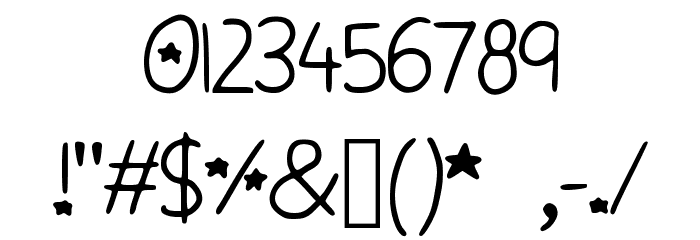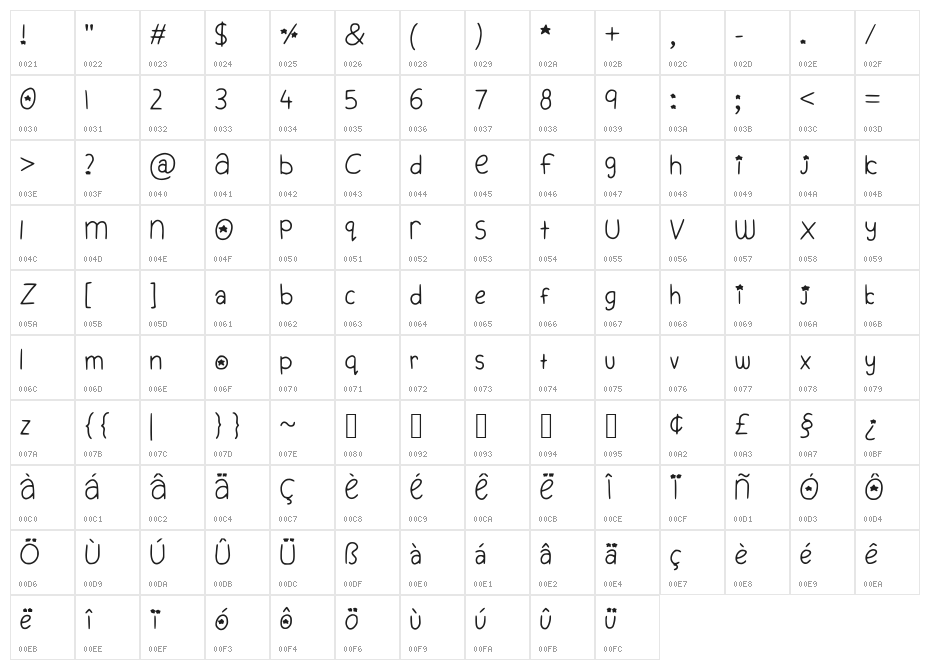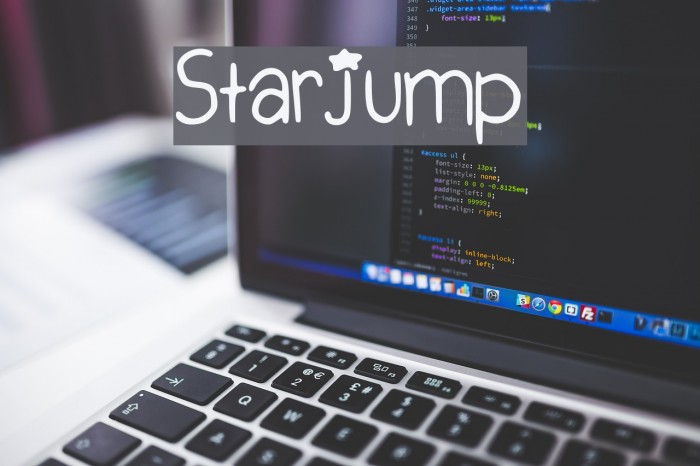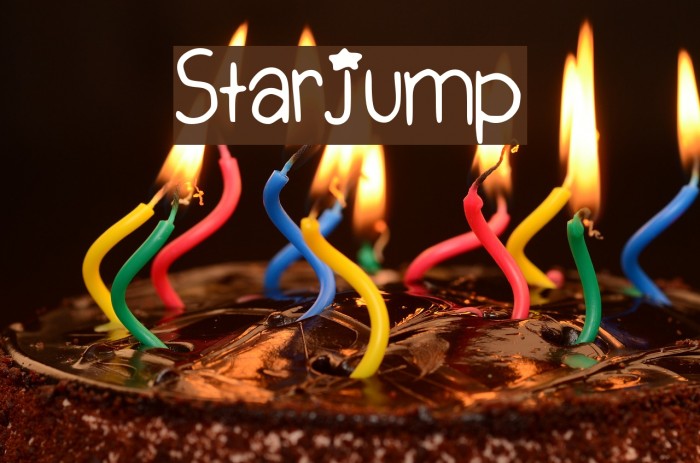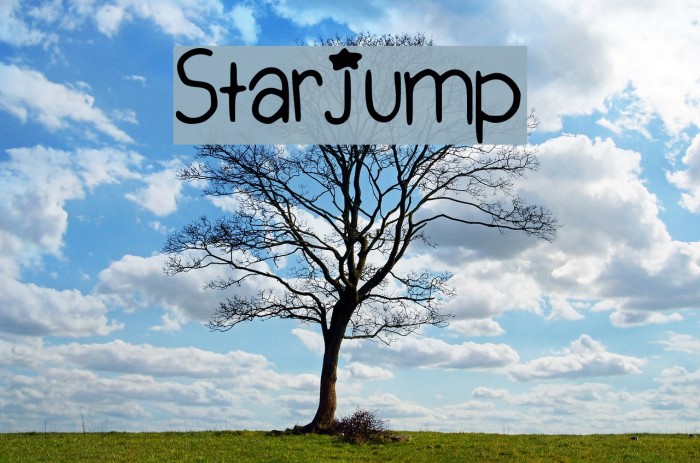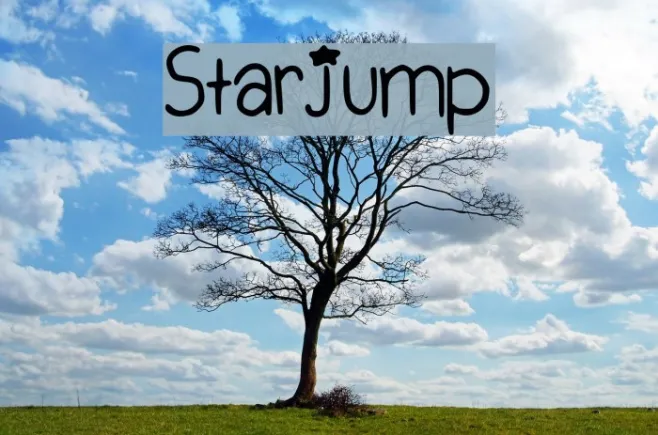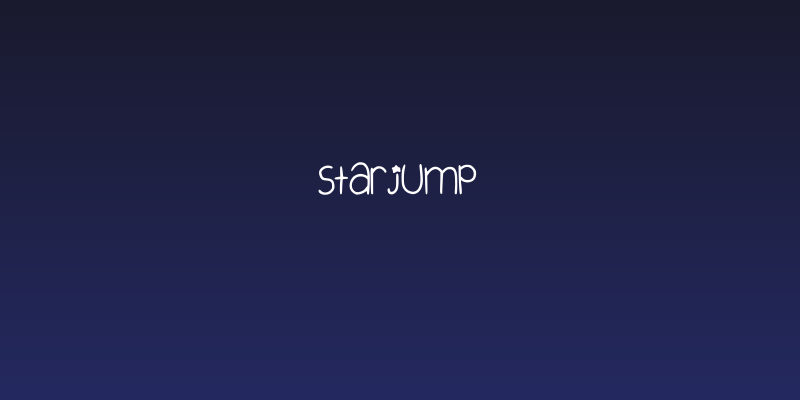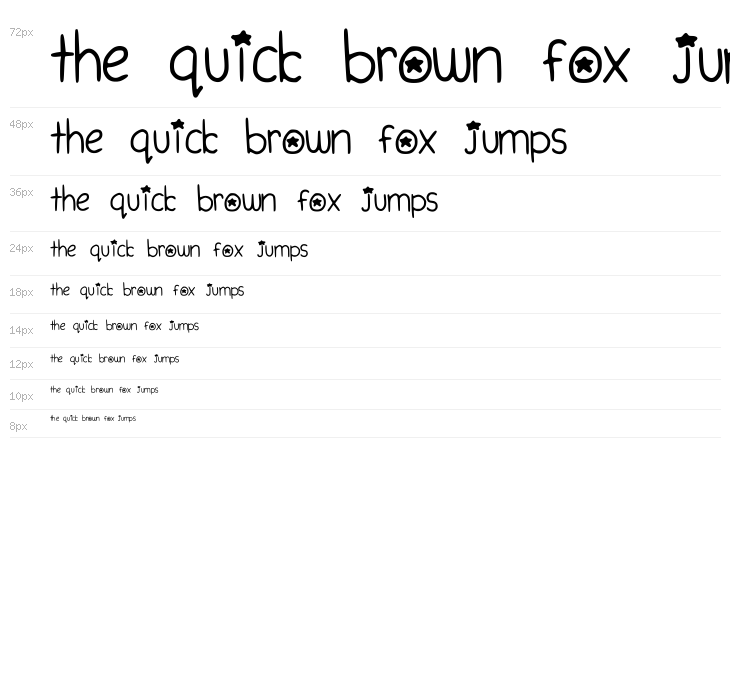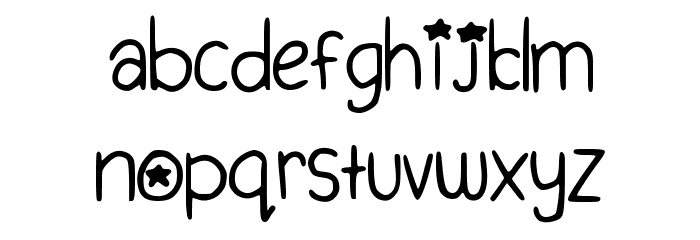
Starjump Font
Starjump Description
This playful and whimsical font features a unique design where stars are cleverly integrated into the characters, adding a touch of fun and creativity. The letters are rounded and slightly irregular, giving them a hand-drawn feel that is both approachable and charming. The uppercase and lowercase letters maintain a consistent style, with the stars appearing in strategic places such as the dots of the 'i' and 'j', and within the loops of certain letters. Numbers and special characters also follow this playful theme, making the font versatile for various creative projects. The overall appearance is casual and friendly, making it suitable for projects that aim to convey a sense of joy and imagination.
| Overall Style | Whimsical, Playful |